For understanding the meaning of typography let me break down the word- Typos+Graphy= Typos ->forms and Graphy ->Writing, which means forms of writing something.
What is a Typography-Types of typefaces
Typography exists everywhere we look. Whether it's a book, website, mobile’s object or everyday life- Street sign, product packaging, etc.
In another way Simply a style or appearance of the text is called typography.
Typography is the technique and art of working with text where you design, arrange the type accordingly. It’s more than making the words more legible.
Types of typefaces
Serif typefaces
Ever noticed those little pointy things (the thick and thin ones) that stand out at the end of some of the strokes that form a letter? Yup! Those little buggers are called Serifs.
Sans serif typefaces
On the other hand, are typefaces without the Serifs?
Script typefaces
Script typefaces imitate handwriting or calligraphy. They typically used for logos or invitations.
Ornamental typefaces
Ornamental (also known as a novelty or sometimes display) typefaces are used exclusively for decorative purposes and are not suitable for body text. They have the most distinctive designs of all fonts, and may even incorporate pictures of objects, animals, etc. into the character designs. They usually have very specific characteristics (e.g., evoking the Wild West, Christmas, horror films, etc.)
Monospaced typefaces
A monospaced font also called a fixed-pitch or non-proportional font, is a font whose letters and characters each occupy the same amount of horizontal space.
Symbol typefaces
Typefaces consist of symbols (such as decorative bullets, clock faces, railroad timetable symbols, CD-index ) rather than normal text characters
Why Good Typography = Good UX?
In a study by MIT psychologist, Kevin Larson he tested how the type choice, layout, and line spacing could affect the emotions of readers. He split them into groups and had them read the same document but with different designs.
Here is a few typography tips:
1. Limit your typefaces. (max 3)
- 1 Type for headings
- 1 Type for body
- 1 Type for CTAs (buttons)
2. Consider applying an F-pattern
3. consider always Z-pattern for page design.
4. Respect the reading line length
5. Use Vertical Rhythm and avoid “gray pages” - Learn More
6. Don’t confuse your reader
Google Font Combinations-
1. Mostly Used Combination
Lora & Merriweather
Heading: Lora
Body: Merriweather
Proza Libre & Open Sans
Heading: Proza Libre
Body: Open Sans
Libre Baskerville & Source Sans Pro
Heading: Libre Baskerville
Body: Source Sans Pro
Rubik & Karla
Heading: Rubik
Body: Karla
Asap & Asap
Heading: Asap
Body: Asap
Work Sans & Work Sans
Heading: Work Sans
Body: Work Sans
Used on Red Elegant
Domine & Roboto
Heading: Domine
Body: Roboto
Fira Sans & Merriweather
Heading: Fira Sans
Body: Merriweather
Karla & Karla
Heading: Karla
Body: Karla
Nunito & Nunito
Heading: Nunito
Body: Nunito
Space Mono & Space Mono
Heading: Space Mono
Body: Space Mono
Poppins & PT Serif
Heading: Poppins
Body: PT Serif
Muli & Muli
Heading: Muli
Body: Muli
BioRhyme & Space Mono
Heading: BioRhyme
Body: Space Mono
Saira & Saira
Heading: Saira
Body: Saira
IBM Plex Sans & IBM Plex Serif
Heading: IBM Plex Sans
Body: IBM Flex Serif
2. Sans-Serif/Serif
Alegreya Sans & Alegreya
Heading: Alegreya Sans
Body: Alegreya
Archivo Narrow & Merriweather
Heading: Archivo Narrow
Body: Merriweather
Cabin & Old Standard TT
Heading: Cabin
Body: Old Standard TT
Fjalla One & Average
Heading: Fjalla One
Body: Average
Istok Web & Lora
Heading: Istok Web
Body: Lora
Lato & Merriweather
Heading: Lato
Body: Merriweather
Libre Franklin & Libre Baskerville
Heading: Libre Franklin
Body: Libre Baskerville
Merriweather Sans & Merriweather
Heading: Merriweather Sans
Body: Merriweather
Montserrat & Cardo
Heading: Montserrat
Body: Cardo
Montserrat & Crimson Text
Heading: Montserrat
Body: Crimson Text
Montserrat & Domine
Heading: Montserrat
Body: Domine
Montserrat & Neuton
Heading: Montserrat
Body: Neuton
Nunito & Alegreya
Heading: Nunito
Body: Alegreya
Nunito & Lora
Heading: Nunito
Body: Lora
Open Sans & Gentium Book Basic
Heading: Open Sans
Body: Gentium Book Basic
Open Sans & Libre Baskerville
Heading: Open Sans
Body: Libre Baskerville
Open Sans & Lora
Heading: Open Sans
Body: Lora
Oswald & Merriweather
Heading: Oswald
Body: Merriweather
Oswald & Old Standard TT
Heading: Oswald
Body: Old Standard TT
Oswald & Quattrocento
Heading: Oswald
Body: Quattrocento
PT Sans & PT Serif
Heading: PT Sans
Body: PT Serif
Quicksand & EB Garamond
Heading: Quicksand
Body: EB Garamond
Raleway & Merriweather
Heading: Raleway
Body: Merriweather
Source Sans Pro & Source Serif Pro
Heading: Source Sans Pro
Body: Source Serif Pro
Ubuntu & Lora
Heading: Ubuntu
Body: Lora
Work Sans & Taviraj
Heading: Work Sans
Body: Taviraj
3. Serif/Sans-Serif
BioRhyme & Cabin
Heading: BioRhyme
Body: Cabin
Cormorant Garamond & Proza Libre
Heading: Cormorant Garamond
Body: Proza Libre
Alegreya & Open Sans
Heading: Alegreya
Body: Open Sans
Alegreya & Source Sans Pro
Heading: Alegreya
Body: Source Sans Pro
Bitter & Raleway
Heading: Bitter
Body: Raleway
Bree Serif & Open Sans
Heading: Bree Serif
Body: Open Sans
Cantata One & Imprima
Heading: Cantata One
Body: Imprima
Cardo & Josefin Sans
Heading: Cardo
Body: Josefin Sans
Crete Round & AbeeZee
Heading: Crete Round
Body: AbeeZee
Josefin Slab & Josefin Sans
Heading: Josefin Slab
Body: Josefin Sans
Kreon & Ubuntu
Heading: Kreon
Body: Ubuntu
Libre Baskerville & Montserrat
Heading: Libre Baskerville
Body: Montserrat
Libre Baskerville & Open Sans
Heading: Libre Baskerville
Body: Open Sans
Lora & Source Sans Pro
Heading: Lora
Body: Source Sans Pro
Lustria & Lato
Heading: Lustria
Body: Lato
Merriweather & Open Sans
Heading: Merriweather
Body: Open Sans
Merriweather & Source Sans Pro
Heading: Merriweather
Body: Source Sans Pro
Old Standard TT & Questrial
Heading: Old Standard TT
Body: Questrial
Ovo & Muli
Heading: Ovo
Body: Muli
Playfair Display & Open Sans
Heading: Playfair Display
Body: Open Sans
PT Serif & Open Sans
Heading: PT Serif
Body: Open Sans
Quattrocento & Quattrocento Sans
Heading: Quattrocento
Body: Quattrocento Sans
Roboto Slab & Open Sans
Heading: Roboto Slab
Body: Open Sans
Roboto Slab & Roboto
Heading: Roboto Slab
Body: Roboto
Rokkitt & Roboto
Heading: Rokkitt
Body: Roboto
Rokkitt & Ubuntu
Heading: Rokkitt
Body: Ubuntu
Rufina & Sintony
Heading: Rufina
Body: Sintony
Trirong & Rubik
Heading: Trirong
Body: Rubik
Spectral & Source Sans Pro
Heading: Spectral
Body: Source Sans Pro
Vollkorn & Exo
Heading: Vollkorn
Body: Exo
4. Sans-Serif/Sans-Serif
Abel & Ubuntu
Heading: Abel
Body: Ubuntu
Amaranth & Titillium Web
Heading: Amaranth
Body: Titillium Web
Didact Gothic & Arimo
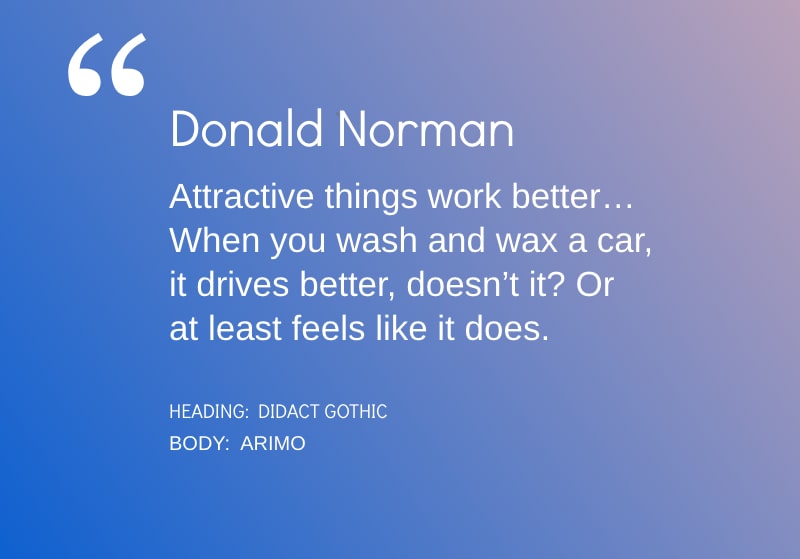
Heading: Didact Gothic
Body: Arimo
Dosis & Open Sans
Heading: Dosis
Body: Open Sans
Droid Sans & Cabin
Heading: Droid Sans
Body: Cabin
Fira Sans & Montserrat
Heading: Fira Sans
Body: Montserrat
Fjalla One & Cantarell
Heading: Fjalla One
Body: Cantarell
Francois One & Didact Gothic
Heading: Francois One
Body: Didact Gothic
Francois One & Lato
Heading: Francois One
Body: Lato
Francois One & Open Sans
Heading: Francois One
Body: Open Sans
Hind & Open Sans
Heading: Hind
Body: Open Sans
Karla & Montserrat
Heading: Karla
Body: Montserrat
Karla & Lato
Heading: Karla
Body: Lato
Montserrat & Hind
Heading: Montserrat
Body: Hind
Montserrat & Istok Web
Heading: Montserrat
Body: Istok Web
Nunito Sans & Nunito
Heading: Nunito Sans
Body: Nunito
Nunito & Open Sans
Heading: Nunito
Body: Open Sans
Open Sans & Nunito
Heading: Open Sans
Body: Nunito
Open Sans & Oswald
Heading: Open Sans
Body: Oswald
Oswald & Droid Sans
Heading: Oswald
Body: Droid Sans
Oswald & Open Sans
Heading: Oswald
Body: Open Sans
Oxygen & Source Sans Pro
Heading: Oxygen
Body: Source Sans Pro
Philosopher & Muli
Heading: Philosopher
Body: Muli
Poppins & Open Sans
Heading: Poppins
Body: Open Sans
PT Sans & Cabin
Heading: PT Sans
Body: Cabin
PT Sans & Didact Gothic
Heading: PT Sans
Body: Didact Gothic
Raleway & Cabin
Heading: Raleway
Body: Cabin
Raleway & Roboto
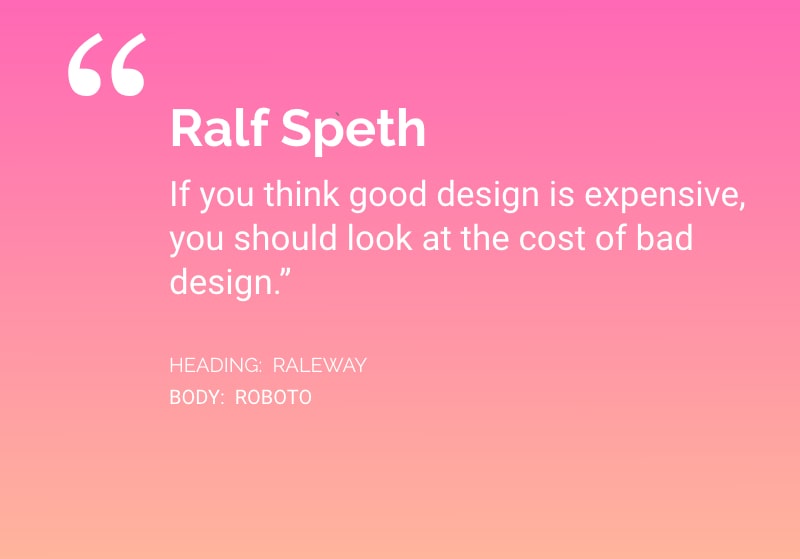
Heading: Raleway
Body: Roboto
Roboto & Nunito
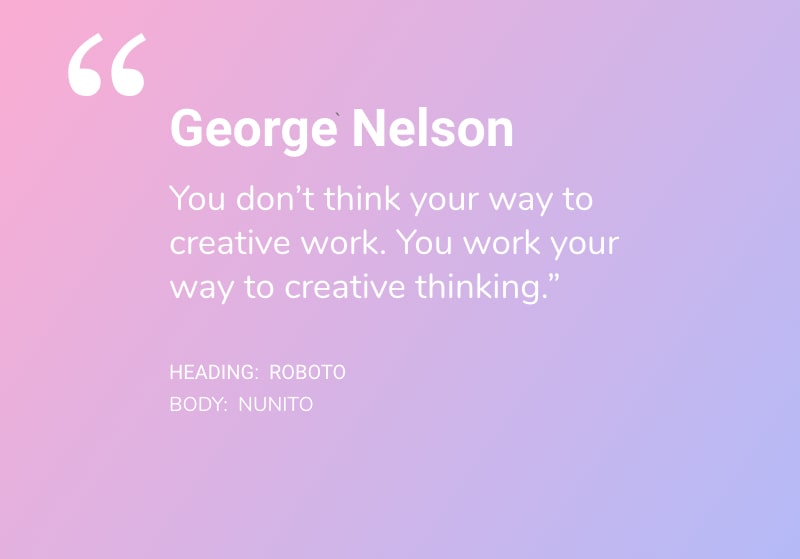
Heading: Roboto
Body: Nunito
Signika & Open Sans
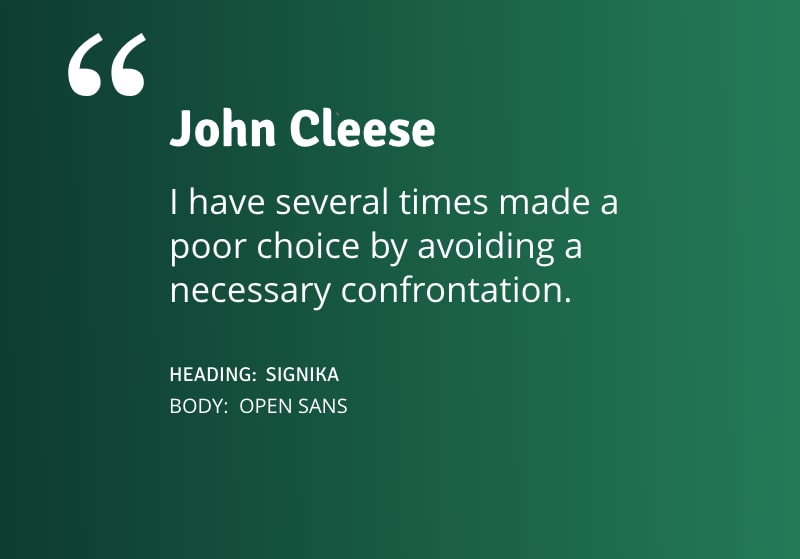
Heading: Signika
Body: Open Sans
UBUNTU & Cabin
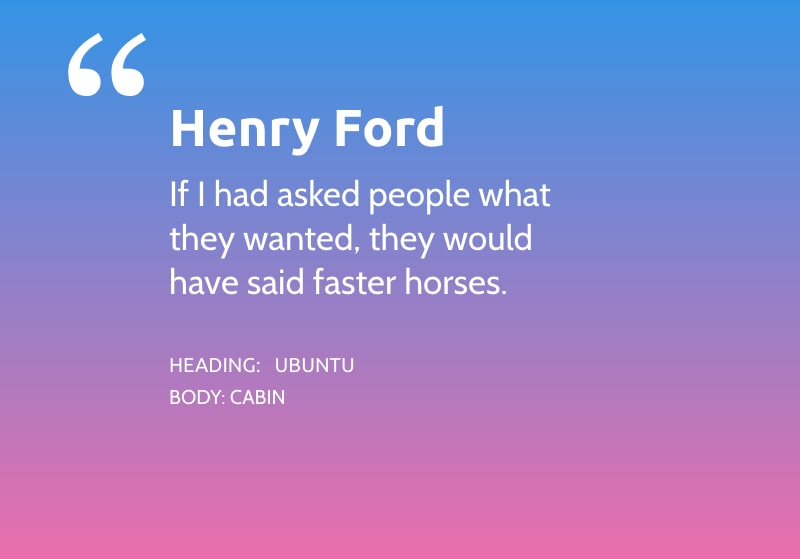
Heading: Ubuntu
Body: Cabin
Ubuntu & Didact Gothic
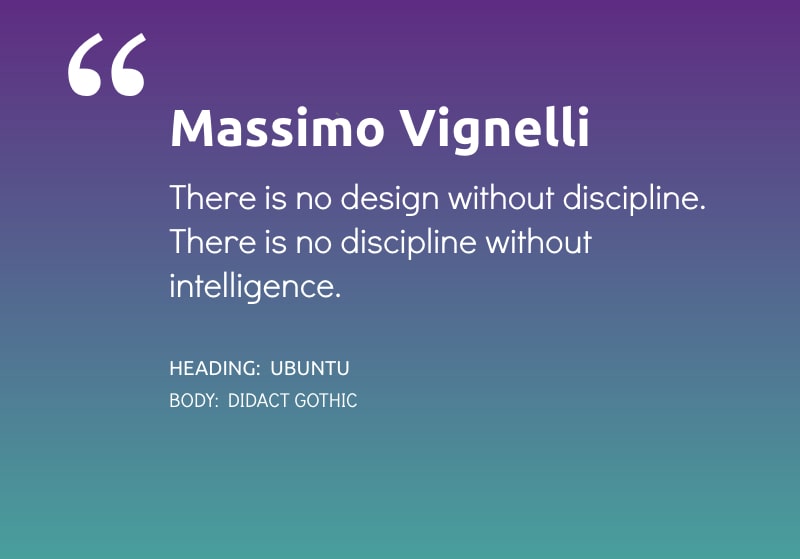
Heading: Ubuntu
Body: Didact Gothic
Ubuntu & Hind
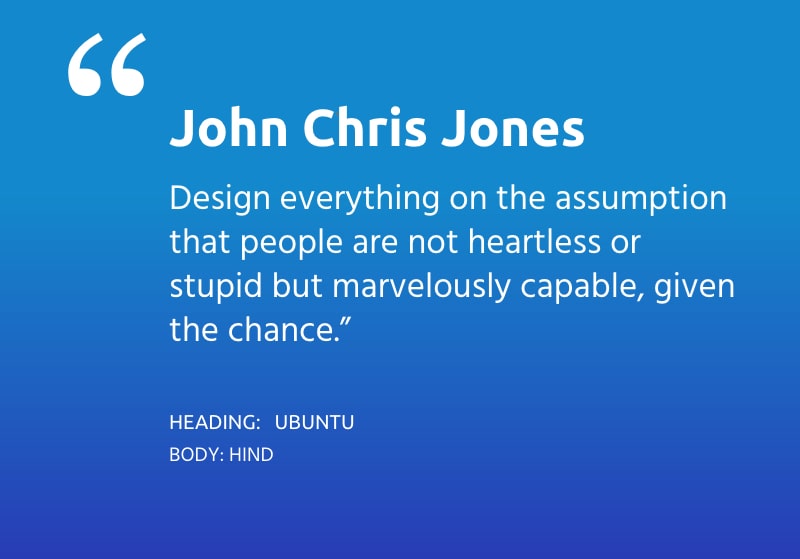
Heading: Ubuntu
Body: Hind
Ubuntu & Source Sans Pro
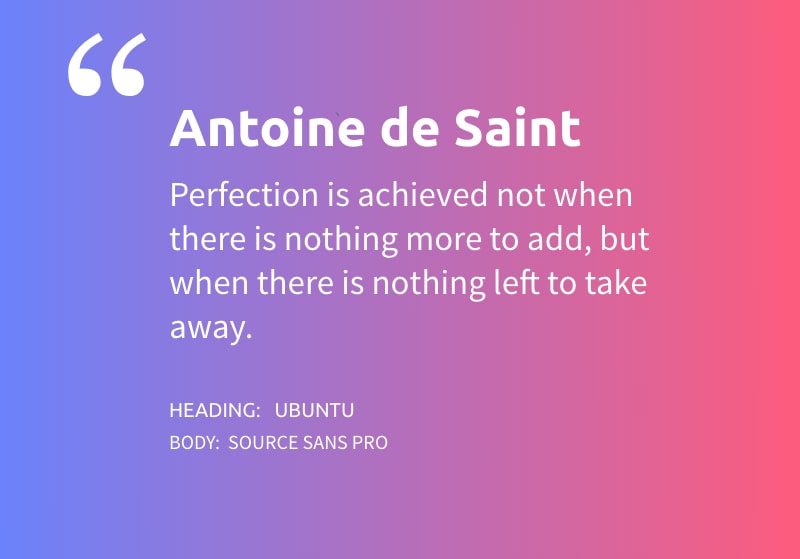
Heading: Ubuntu
Body: Source Sans Pro
Walter Turncoat & Kreon
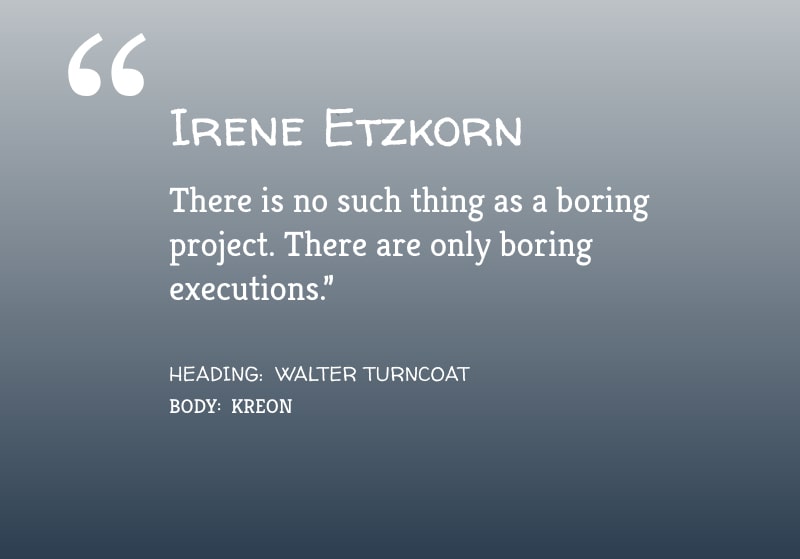
Heading: Walter Turncoat
Body: Kreon
Yeseva One & Crimson Text
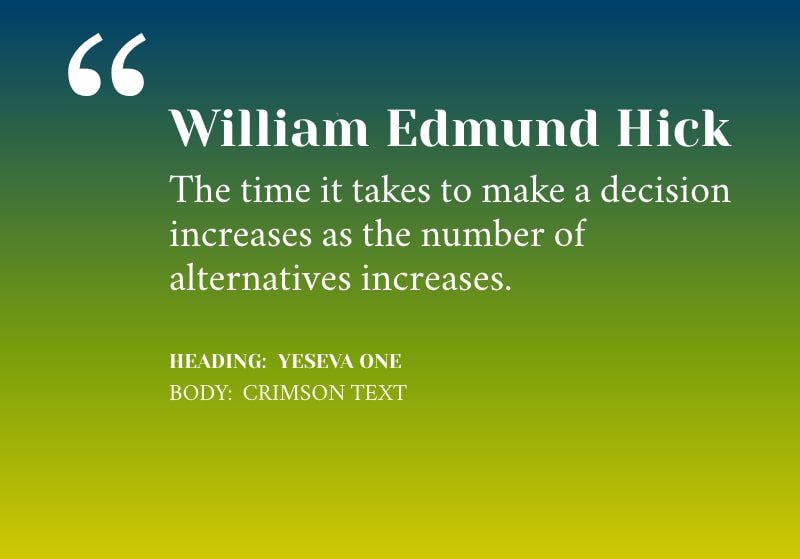
Heading: Yeseva One
Body: Crimson Text
5. Display/Sans-Serif
Abril Fatface & Droid Sans
Heading: Abril Fatface
Body: Droid Sans
Abril Fatface & Josefin Sans
Heading: Abril Fatface
Body: Josefin Sans
Abril Fatface & Lato
Heading: Abril Fatface
Body: Lato
Amatic SC & Andika
Heading: Amatic Script
Body: Andika
Amatic SC & Josefin Sans
Heading: Amatic Script
Body: Josefin Sans
Bevan & Pontano Sans
Heading: Bevan
Body: Pontano Sans
Flamenco & Asap
Heading: Flamenco
Body: Asap
Lobster & Arimo
Heading: Lobster
Body: Arimo
Lobster & Cabin
Heading: Lobster
Body: Cabin
Medula One & Lato
Heading: Medula One
Body: Lato
Pacifico & Arimo
Heading: Pacifico
Body: Arimo
Patua One & Oswald
Heading: Patua One
Body: Oswald
Rancho & Gudea
Heading: Rancho
Body: Gudea
Shadows & Roboto
Heading: Shadows
Body: Roboto
Squada One & Allerta
Heading: Squada One
Body: Allerta
Stint Ultra & Pontano Sans
Heading: Stint Ultra Expanded
Body: Pontano Sans
Yeseva One & Josefin Sans
-min-18022020.jpg)
Heading: Yeseva One
Body: Josefin Sans
6. Display/Serif
Alfaslab One & Gentium Book
Heading: Alfaslab One
Body: Gentium Book Basic
Clicker Script & EB Garamond
Heading: Clicker Script
Body: EB Garamond
Dancing Script & Ledger
Heading: Dancing Script
Body: Ledger
Dancing Script & EB Garamond
Heading: Dancing Script
Body: EB Garamond
Nixie One & Ledger
Heading: Nixie One
Body: Ledger
Patua One & Lora
Heading: Patua One
Body: Lora
Nixie One & Libre Baskerville
Heading: Nixie One
Body: Libre Baskerville
Sacramento & Alice
Heading: Sacramento
Body: Alice
Sansita One & Kameron
Heading: Sansita One
Body: Kameron
Unica One & Vollkorn
Heading: Unica One
Body: Vollkorn
7. Serif/Serif
Bree Serif & Lora
Heading: Bree Serif
Body: Lora
Eczar & Gentium Basic
Heading: Eczar
Body: Gentium Basic
Playfair Display & Alice
Heading: Playfair Display
Body: Alice
Playfair Display & Fauna One
Heading: Playfair Display
Body: Fauna One
Quando & Judson
Heading: Quando
Body: Judson
Quattrocento & Fanwood Text
Heading: Quattrocento
Body: Fanwood Text
Ultra & Slabo 13px
Heading: Ultra
Body: Slabo 13px
8. Sans-Serif/Monospace
Poppins & Anonymous Pro
Heading: Poppins
Body: Anonymous Pro
Karla & Inconsolata
Heading: Karla
Body: Inconsolata
9. Monospace/Sans-Serif
Inconsolata & Montserrat
Heading: Inconsolata
Body: Montserrat
Space Mono & Work Sans
Heading: Space Mono
Body: Work Sans
Space Mono & Roboto
Heading: Space Mono
Body: Roboto